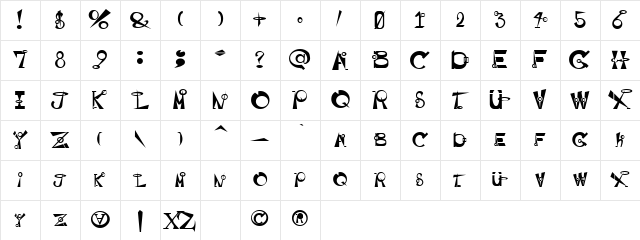
BASEHEAD Regular
Design Context for BASEHEAD
BASEHEAD is a composed and adaptable typeface that performs quietly and consistently across a wide range of design contexts.